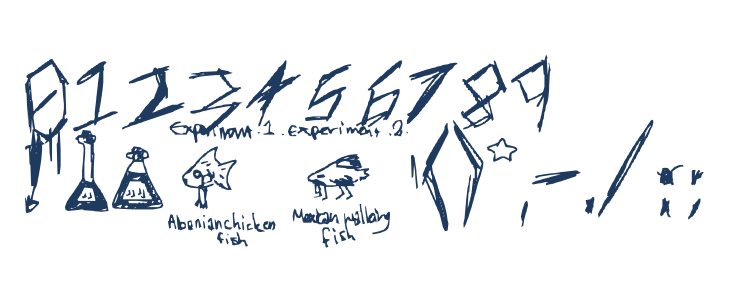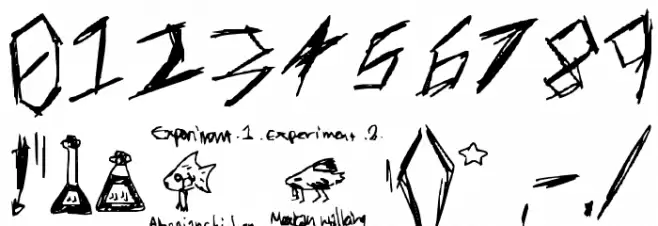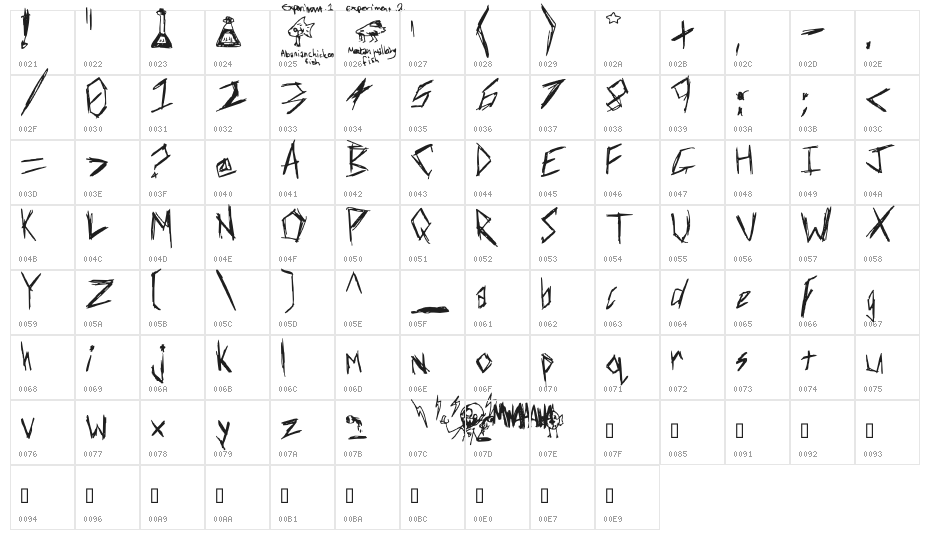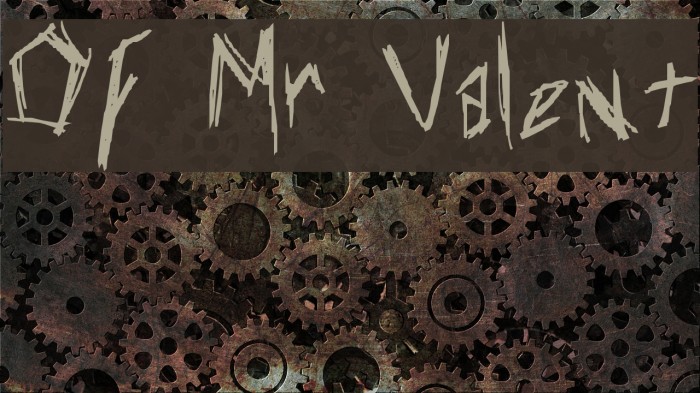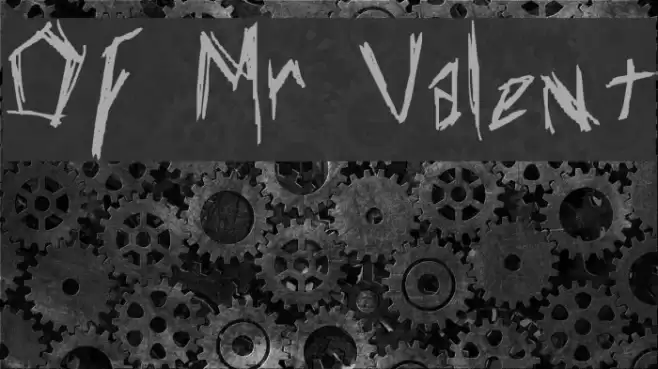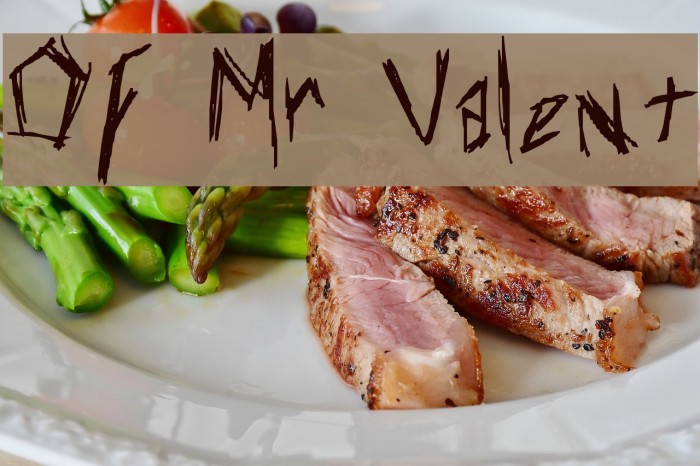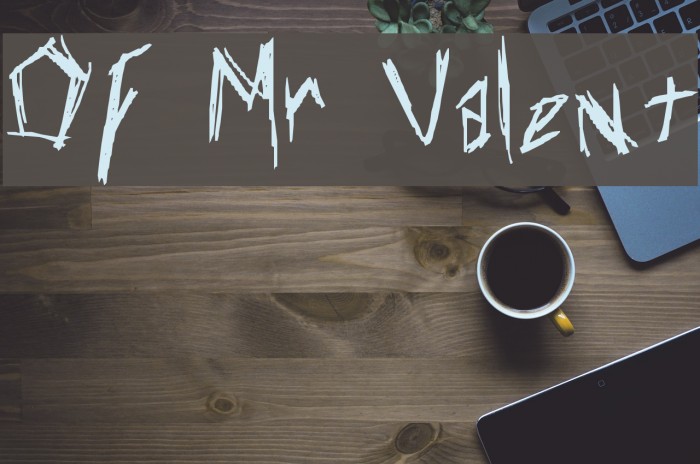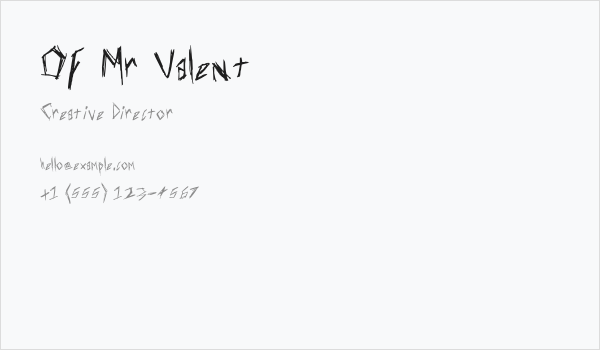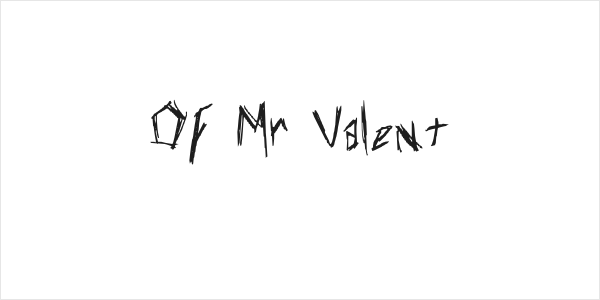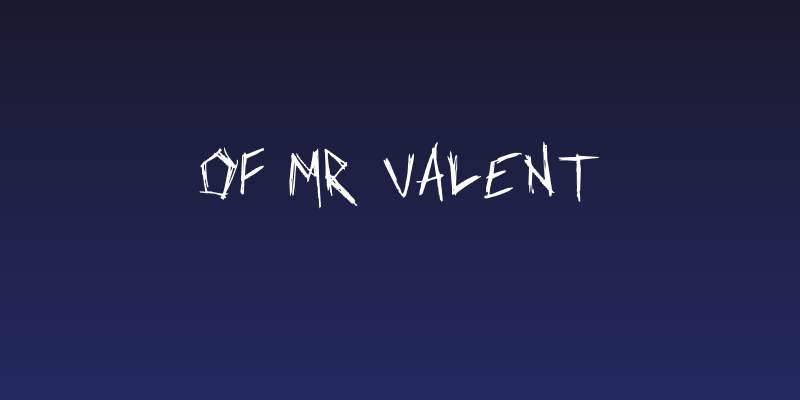
Of Mr Valent Font
Of Mr Valent Description
This font features a highly expressive and chaotic style, characterized by jagged, irregular strokes that give it a hand-drawn, experimental appearance. The letters vary in thickness, with some strokes being bold and others thin, creating a dynamic and energetic look. The uppercase and lowercase letters maintain a consistent level of unpredictability, with sharp angles and uneven baselines. Numbers and special characters follow the same erratic design, adding to the overall edgy aesthetic. This font is ideal for projects that require a raw, unconventional feel.
| Overall Style | Experimental, Edgy |
| Use Case | Logos, Posters, Artistic projects |
| Proposed Projects | Album covers, horror movie posters, graffiti art, experimental design projects. |